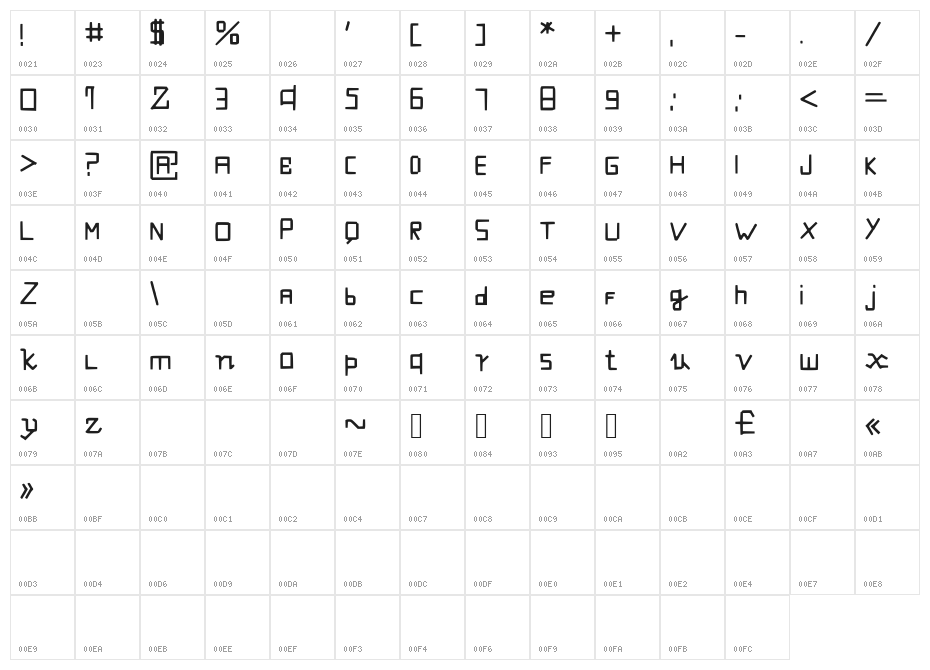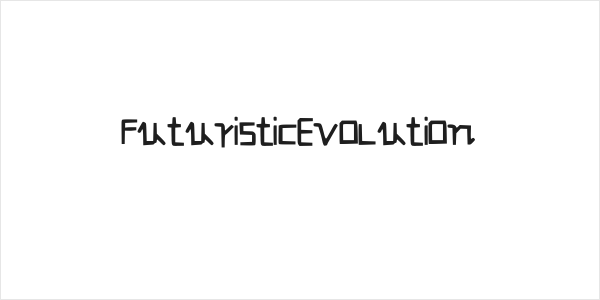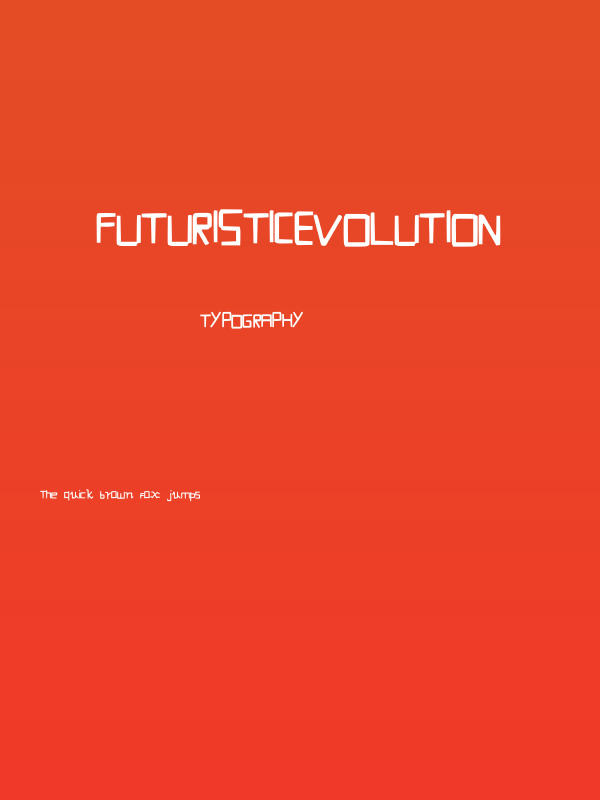
FuturisticEvolution Font
FuturisticEvolution Description
This font features a futuristic and geometric design, characterized by its angular and sharp edges. The uppercase letters are bold and structured, while the lowercase letters maintain a consistent style with a slightly softer approach. The numbers and special characters follow the same geometric theme, providing a cohesive look across all characters. The font's unique style is reminiscent of digital or sci-fi aesthetics, making it ideal for modern and tech-oriented designs. Its clean lines and distinct shapes ensure readability while maintaining a strong visual impact.
| Proposed Projects | Ideal for tech-related branding, sci-fi movie posters, video game titles, and futuristic-themed websites. |